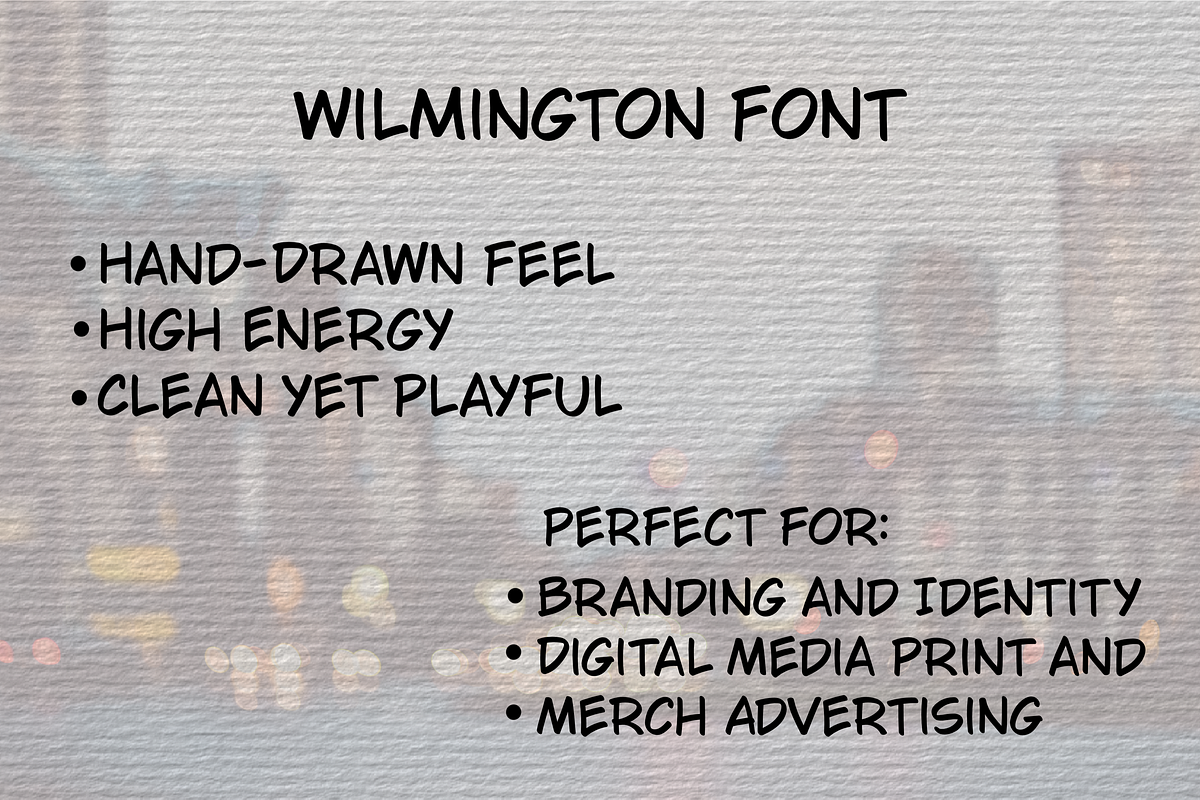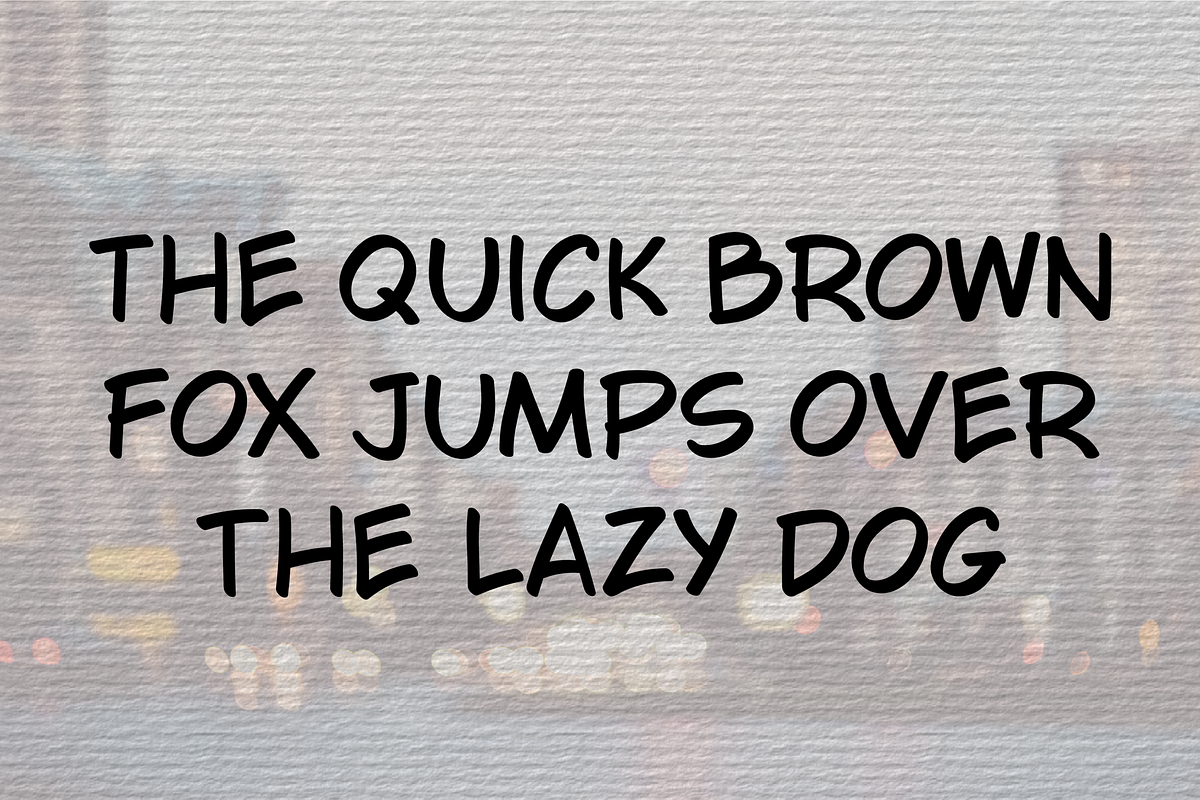
Bold & Modern Stylized Display Font
Wilmington | A Bold & Modern Stylized Display Font Inject personality into your next project with Wilmington, a bold, hand-styled display typeface designed for maximum impact. Wilmington strikes the perfect balance between professional structure and a casual, human touch. With its clean, monolinear strokes and soft, rounded terminals, this font captures a high-energy, "pop" aesthetic that stands out without feeling cluttered. Whether you’re building a modern brand identity or creating eye-catching social media graphics, Wilmington provides the legibility and character your designs deserve. What’s Included? • Wilmington OTF – The industry standard for advanced typographic features. • Wilmington TTF – For maximum compatibility across legacy systems and apps. Key Features • High Legibility: Optimized for both large-scale headlines and smaller digital screens. • Friendly Aesthetic: Rounded edges provide an approachable, modern feel. • Versatile Use: Perfect for logos, apparel, packaging, and YouTube thumbnails. Ideal For: • Branding & Logos: Create a memorable identity for cafes, travel brands, or startups. • Social Media: Perfect for Instagram carousels, Pinterest pins, and TikTok captions. • Merchandise: Clean lines make it ideal for vinyl cutting (Cricut/Silhouette) and screen printing. • Digital Ads: High-contrast weights ensure your call-to-action is never missed. Elevate your design toolkit today with Wilmington—where professional design meets a playful spirit.